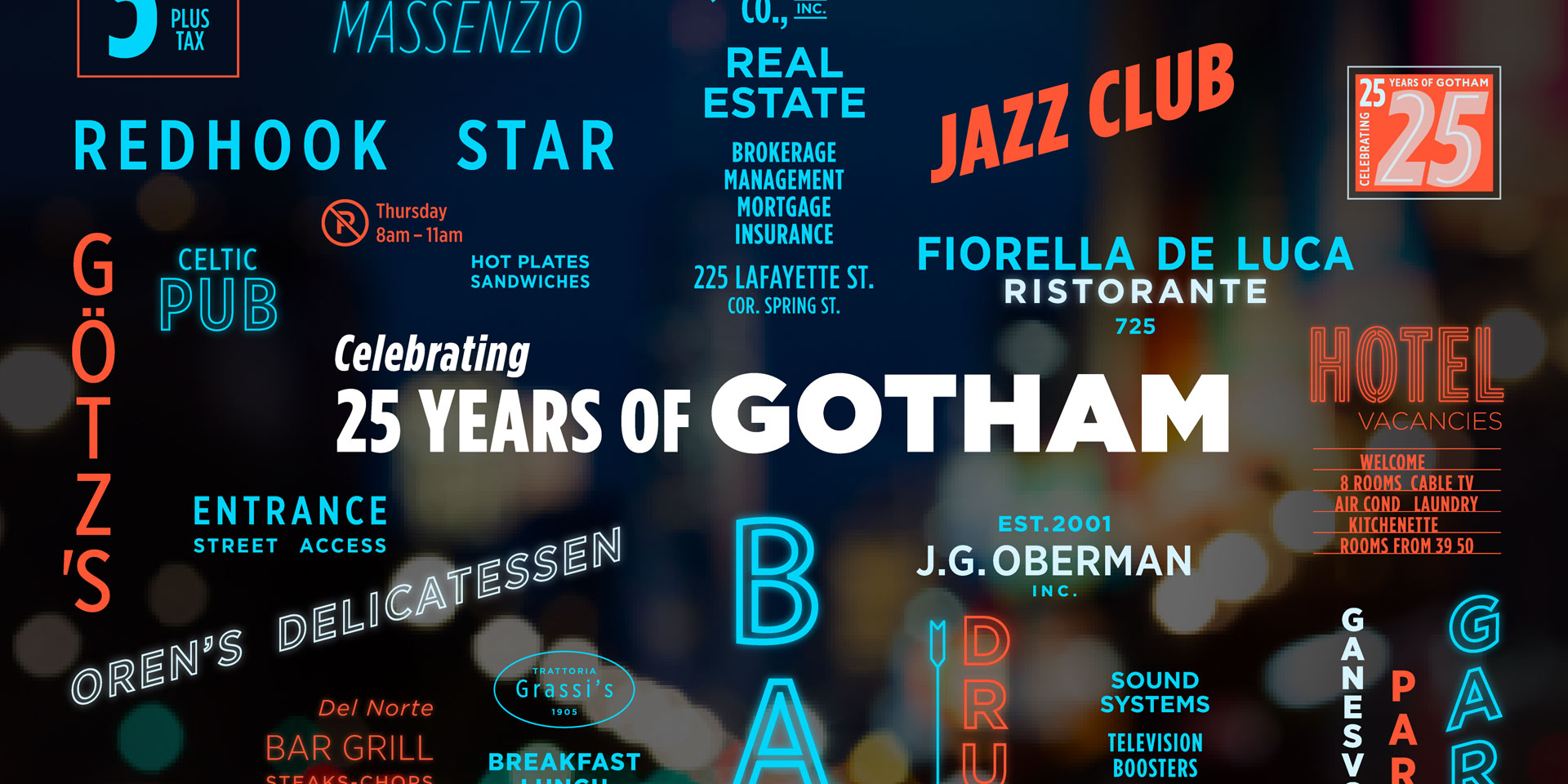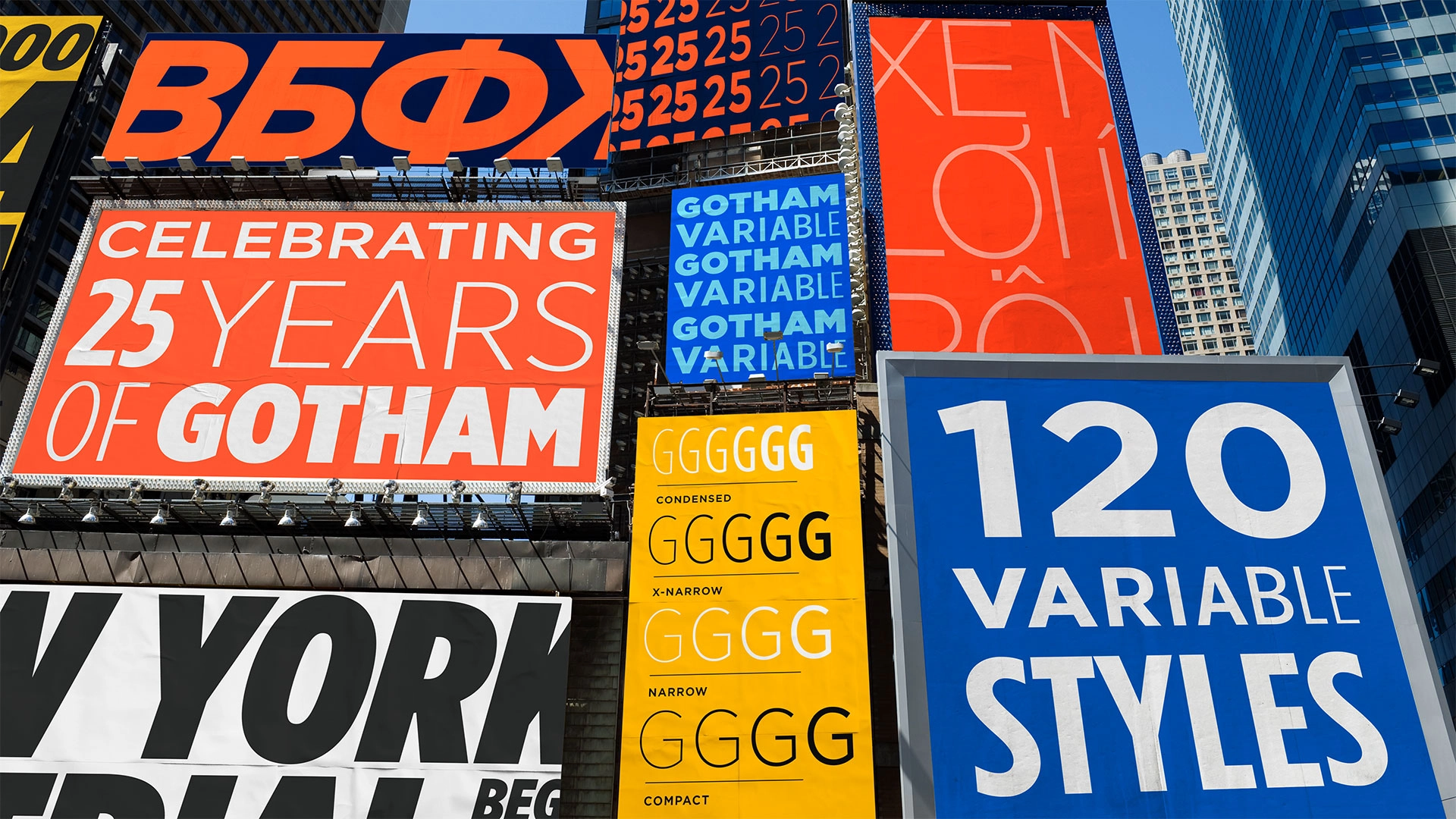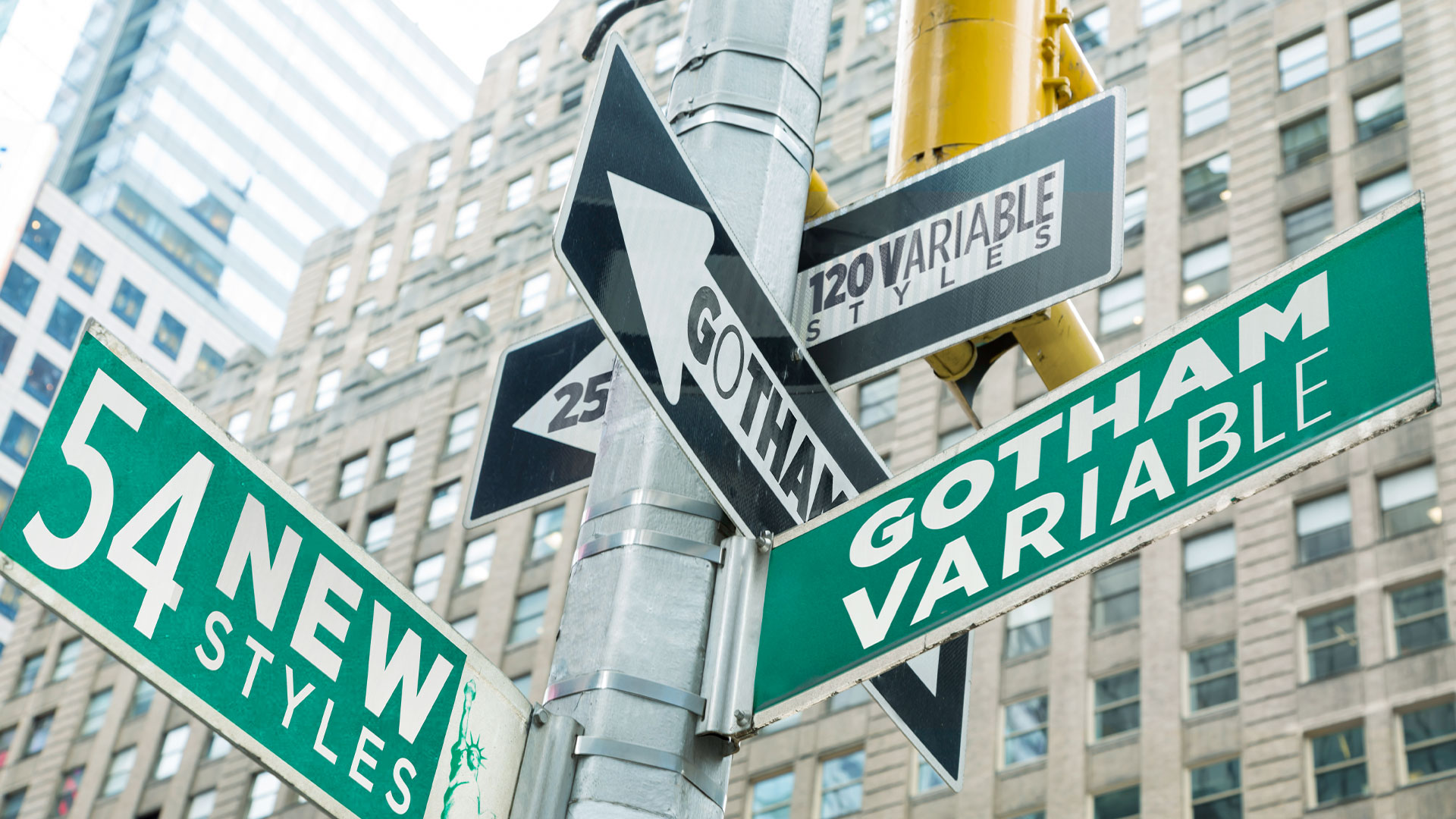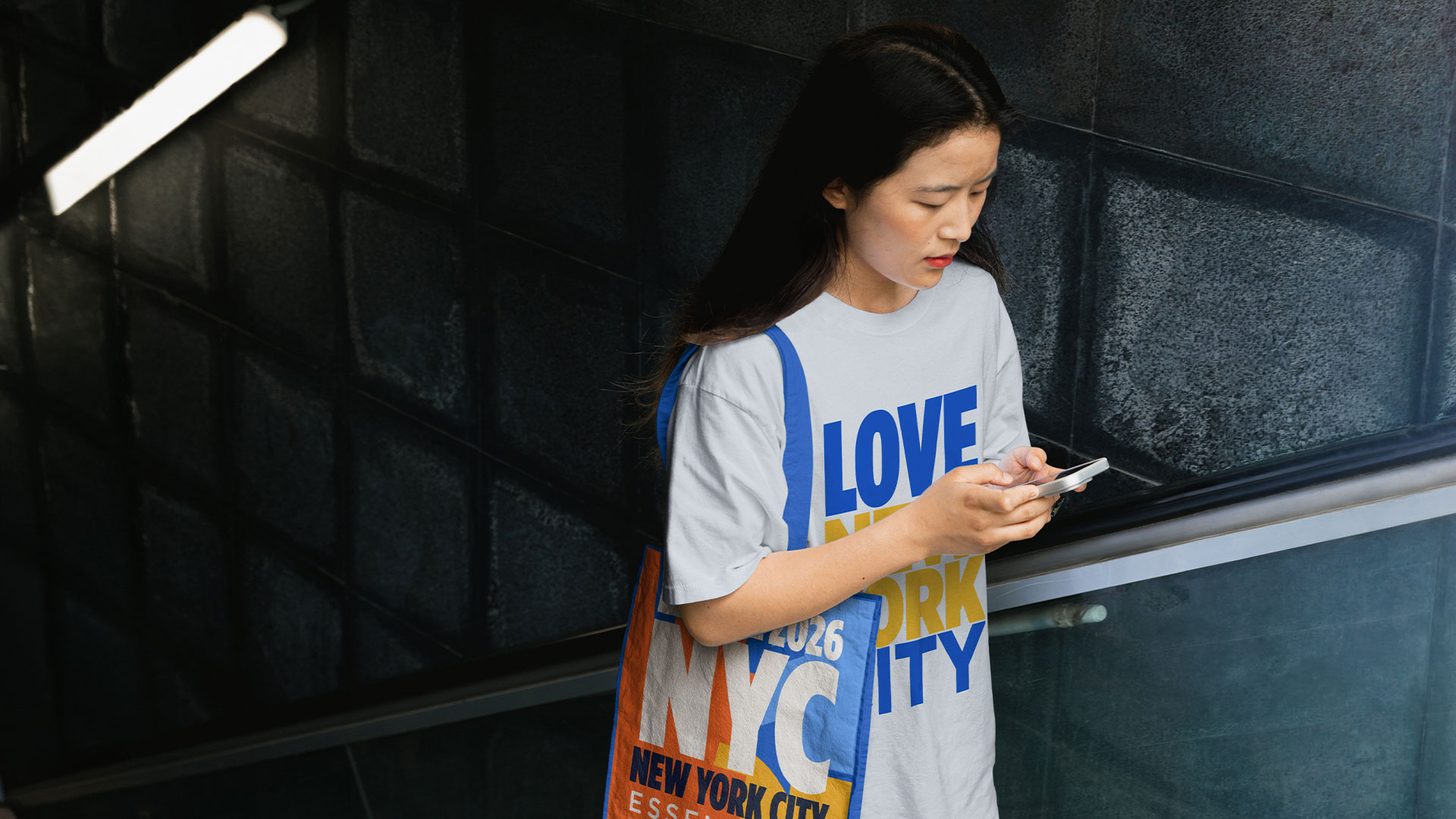
One of the world's most popular typefaces gets an upgrade
Say hello to Gotham Variable.
One of the most popular typefaces in the world, Gotham, has been upgraded by Monotype. Say hello to Gotham Variable, a major evolution of the iconic typeface, which introduces continuous control across weight and width in a single, performance-optimised file.
Gotham, designed by Jonathan Hoefler and Tobias Frere-Jones and published by Hoefler & Co., has been involved in various elements of global communication since it launched publicly on the January 2001 cover of GQ. It has been used by brands the world over, including Netflix and Coca-Cola, the United States Postal Service and Saturday Night Live. Twenty five years later, it enters a new era that enables a new level of creative control and adaptability.
Gotham Variable consolidates multiple static files into a single streamlined file, which improves performances, reduces load times and simplifies implementation across platforms. It's also highly adaptable, working seamlessly across screens, systems and contexts while maintaining Gotham's iconic qualities. There are also 54 new intermediate styles, including subtle new shades of weight and a new Compact width.
Why has it been upgraded now? "We’re at a point with variable fonts that they are more what we have come to expect from a workhorse family, rather than an experiment, an add-on, or a nice-to-have," explains says Sara Soskolne, previously senior designer at Hoefler & Co., now executive creative director at Monotype and lead designer for Gotham Variable.
"Reverse engineering variability into an existing and very widely used family is a trickier task than creating a new family that's conceived as variable from the start. Since Gotham was not designed with variable functionality in mind, I think it made sense to wait a little to make sure variable fonts had reached a critical mass of adoption and expectation before embarking on creating a variable version of a family like Gotham."
Gotham was also an obvious choice for an upgrade. “Gotham has spent 25 years earning an extraordinary kind of trust, from political campaigns to billboards, and across some of the world’s most iconic brand identities," explains Sara.
"With Gotham Variable, we tried to imagine what this typeface could become without losing sight of its powerful legacy. Many of the styles in Gotham Variable have never existed before. Making them feel like they always belonged was the hardest part, and the most essential.”
As well as its technical improvements, Gotham Variable features expanded language support, including Vietnamese, supporting complex diacritics, stacked accents and tone marks. It also includes enhanced Cyrillic and Bulgarian.
“Adding language support to an existing typeface family is no quick and easy task. Getting the proportion and style right for these new glyphs was essential to stay true to Gotham’s DNA. Particularly for the hook and horn, matching Gotham’s expressiveness was key,” says Jordan Bell, senior type designer at Monotype.
For Sara, the connection to Gotham was personal: "My relationship with Gotham stretches back nearly 20 years, which is when I first started collaborating on expansions to what was then still quite a small family. This progressed from smaller initial forays, like adding extended numeric sets and expanded Latin language support, to filling in the width range between Gotham’s original and Condensed extremes to create what became its full 66 styles that were released in 2009; and then to expanding that entire family to cover the Greek and Cyrillic scripts for its 2015 release.
"More recently, I worked with Manual Creative on several bespoke decorated styles of Gotham Condensed for the Obama Foundation, which was a lovely way to reconnect to the family and sort of test the limits of how far it can be pushed while still feeling like Gotham before leading this new Variable expansion.
"And, living in NYC this whole time, on a personal level I’ve had the good fortune of living with some of Gotham’s vernacular sources in signage around the city, to the extent these still exist."
In terms of challenges on this project, there were a few key issues: "To my mind, the main challenges came from the fact of grafting things like variability and Vietnamese language support onto an existing family," says Sara.
"In adding variable functionality, suddenly all the spaces in between Gotham’s static styles – which were where we hid the sleight of hand involved in making them look the way they do – are now visible and completely accessible to users. So we had to be very intentional and critical about how that was handled.
"In adding Vietnamese support, because it’s a language that includes stacked accents (which often require more vertical space to incorporate), but we couldn’t go changing the line height of Gotham, we needed to include these across the whole design space without them feeling cramped or crowded.
"Underlying all of this is the temptation, once you’re opening up the hood, to turn this into a Gotham 2.0 and revisit some of those very early decisions that are causing some trouble later on. But we agreed very early on to keep this new expansion fully backwards compatible and only expand what’s available to users, not to change anything that existed previously, which I think was absolutely the right call."